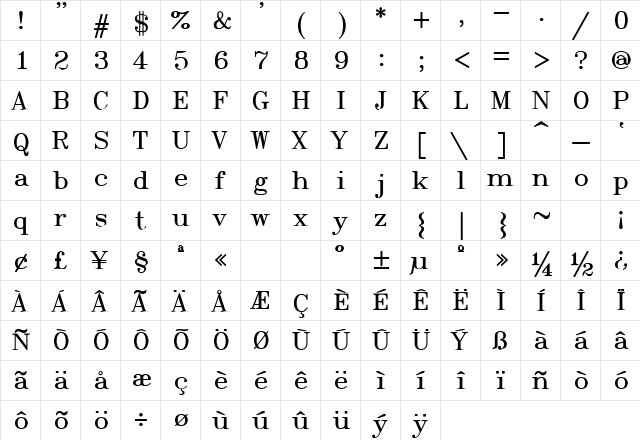
SWRomnt Regular
Design Context for SWRomnt Typeface
SWRomnt takes a measured approach to typography — its balanced proportions and neutral character make it a reliable workhorse for both digital and print work.